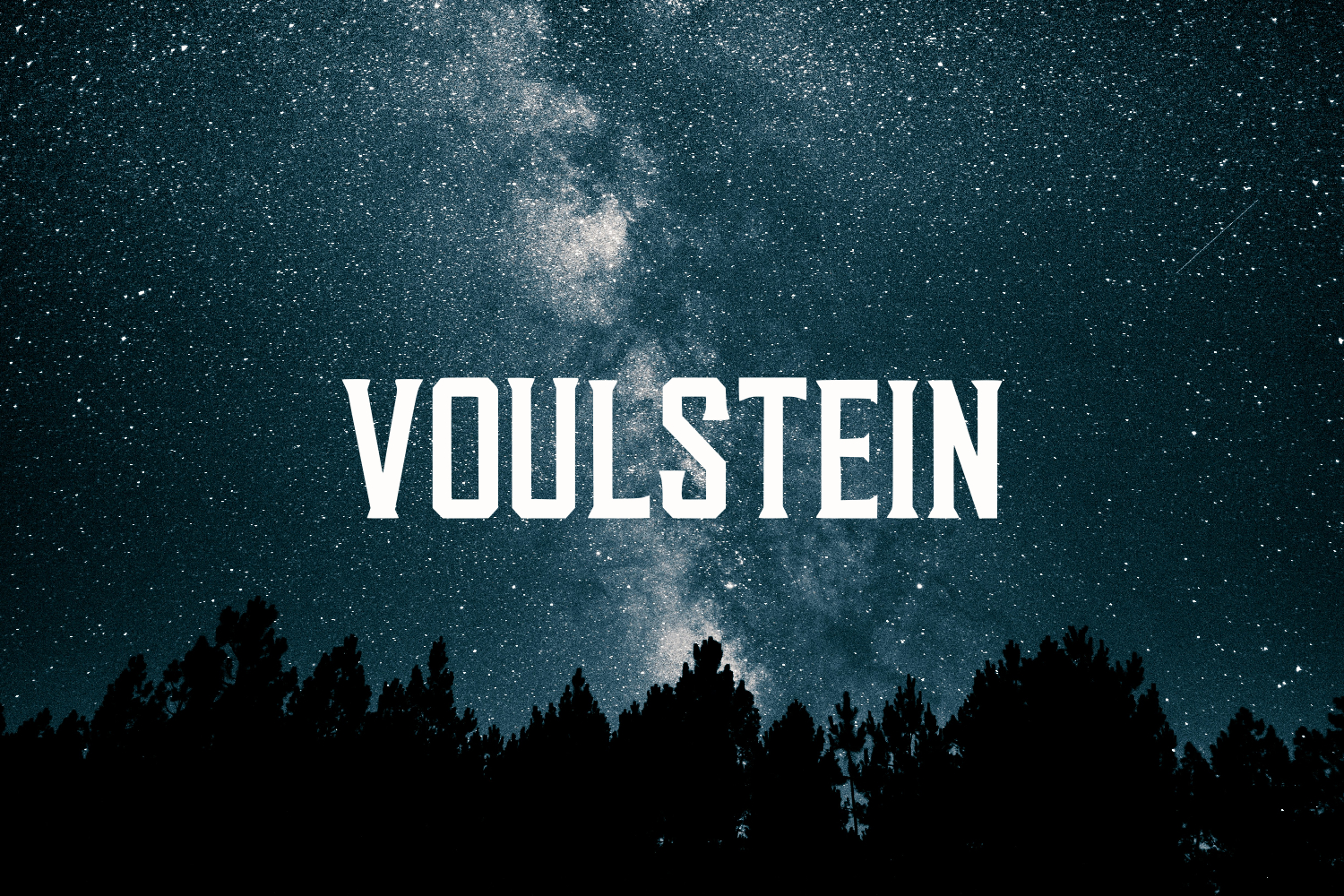
VOULSTEIN
Discover a bold and unique font designed to elevate every design you create. With strong character and clean lines, this typeface adds clarity and confidence to logos, posters, packaging, branding, social media, and more. Its versatility makes it perfect for both modern and classic styles. Whether you're designing for print or digital, this font stands out with style and strength. Easy to use and professionally crafted, it's a must-have for designers who want to make an impact. Download now and bring power, personality, and precision to your next creative project. Make your design unforgettable